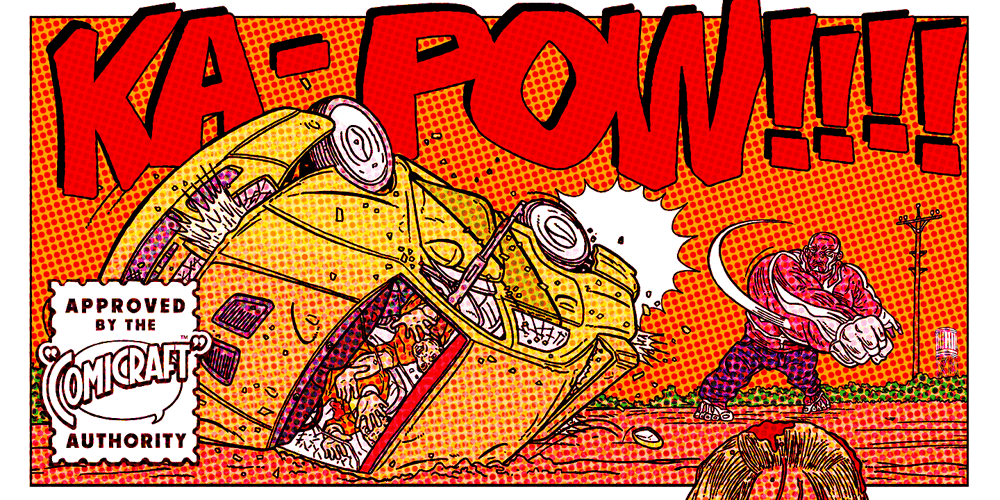
Funky Chicken Town Font Family was designed by John Roshell, Shaky Kane and published by Comicraft. Funky Chicken Town contains 2 styles and family package options. Ripped from the pages of the Art and Crazy Paving Lettering of The Lord of THE BEEF, SHAKY KANE, Comicraft Proudly Presents a font so wacky, so snakey, so achy-breaky, we could only call it FUNKY CHICKEN TOWN. And if that isn’t wacky ENOUGH — FUNKY CHICKEN TOWN features three — count ‘em — THREE versions of each letter!!!